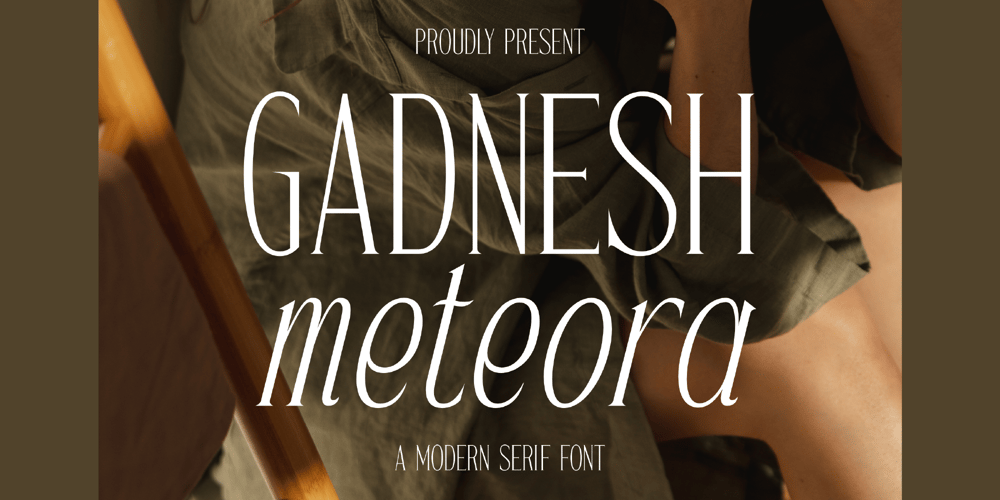
Gadnesh Meteora Font Family was designed by Heru Utama Putra and published by Letterena Studios. Gadnesh Meteora contains 2 styles and family package options. Gadnesh Meteora is an elegant serif font, perfect for an elegant & luxurious logo, book or movie title design, fashion brand, magazine, clothes, lettering, quotes, and so much more.